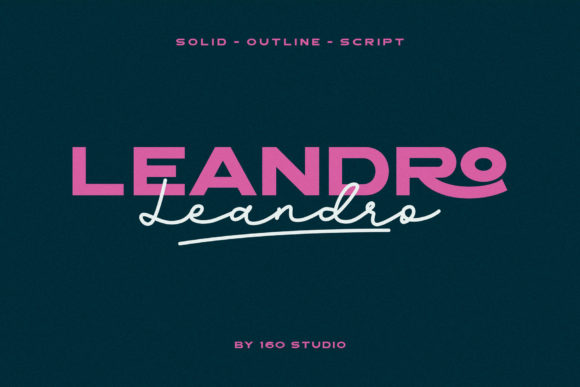
**Introducing Leandro Font: The Ultimate Choice for Your Design Endeavors**
Immerse yourself in the realm of typography with Leandro Font, a captivating trio font that personifies grace, sophistication, and versatility. Designed by the creative minds at 160 Studio, Leandro is not just a font; it's an artistic masterpiece that will transform your designs into captivating creations.
**A Symphony of Styles for Every Occasion**
With Leandro Font, you're not limited to a single style; you have an entire orchestra of typographic options at your fingertips. Its script font exudes a playful charm, perfect for adding a touch of whimsy and elegance to your designs. The strong sans serif counterpart provides a solid foundation, ensuring readability and clarity. And the outline font completes the trio, adding a touch of contemporary flair that's guaranteed to make your designs stand out.
**Elevate Your Design Projects to New Heights**
Whether you're crafting stunning magazine layouts, captivating social media posts, or eye-catching branding materials, Leandro Font is your go-to choice. Its versatility knows no bounds, allowing you to seamlessly blend different styles to create designs that captivate and inspire. Unleash your creativity and let Leandro Font guide you to typographic greatness.
**Experience the Magic of Leandro Font Today**
**Reasons Why Leandro Font is an Absolute Must-Have**
* **Captivating Trio:** Experience the harmonious blend of script, sans serif, and outline fonts, each adding a unique touch to your designs.
* **Boundless Versatility:** Adapt effortlessly to any project, from magazine layouts to branding materials, and witness Leandro Font's seamless adaptability.
* **Effortless Readability:** Enjoy the clarity and readability of Leandro Font's sans serif, ensuring your message is conveyed with precision and impact.
* **Unleash Creativity:** Embark on a creative journey, where Leandro Font becomes your trusted companion, guiding you to typographic excellence.
**Take the First Step Towards Typographic Mastery**